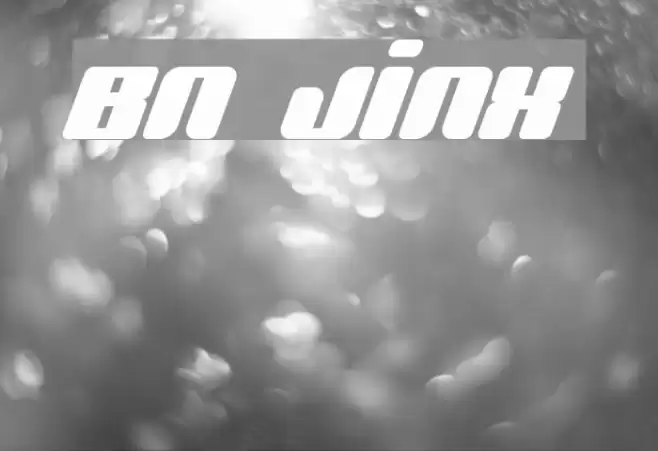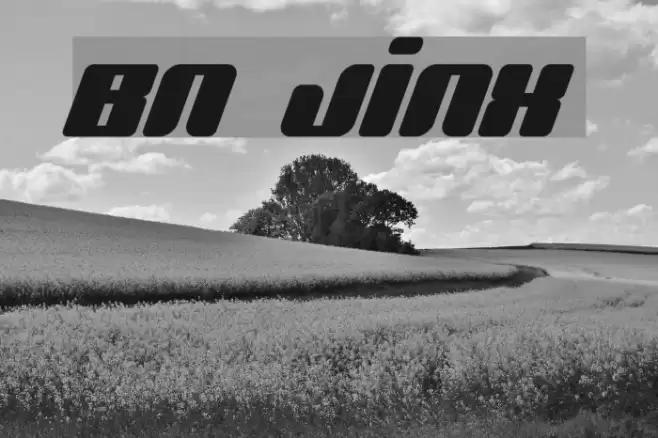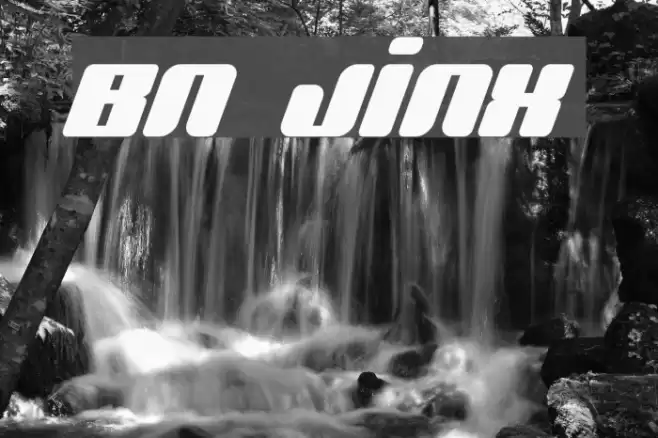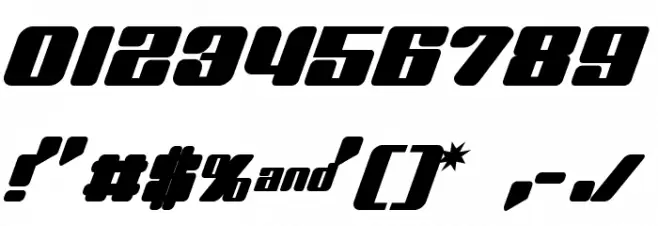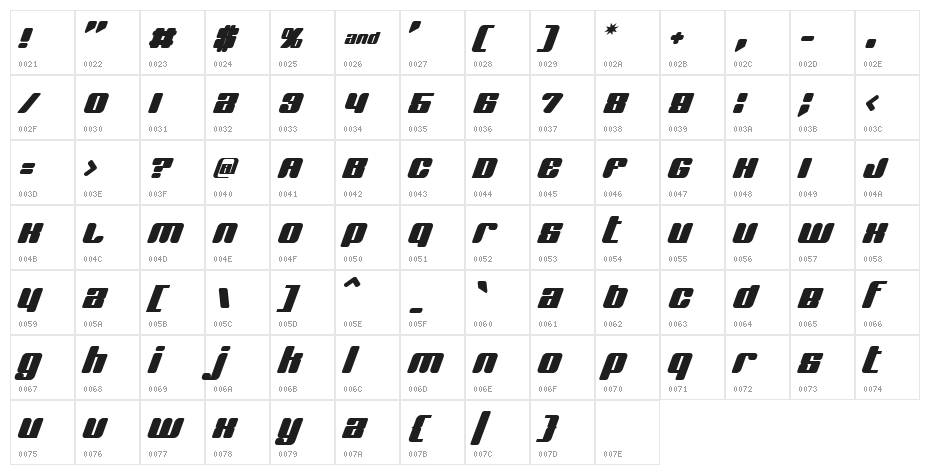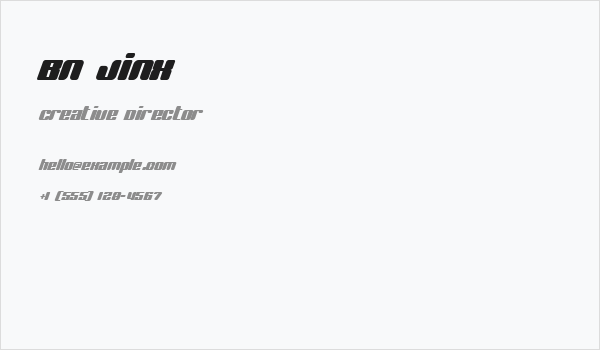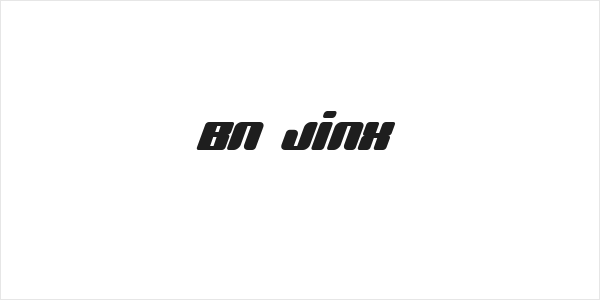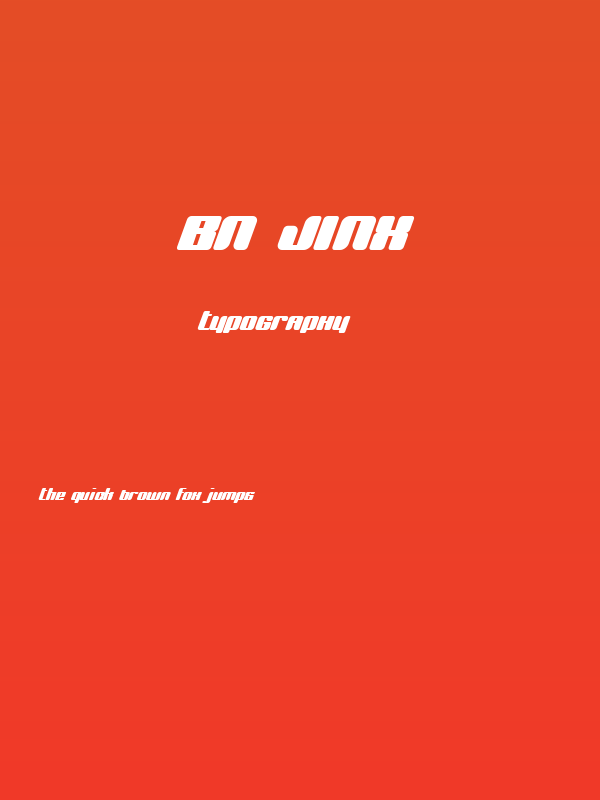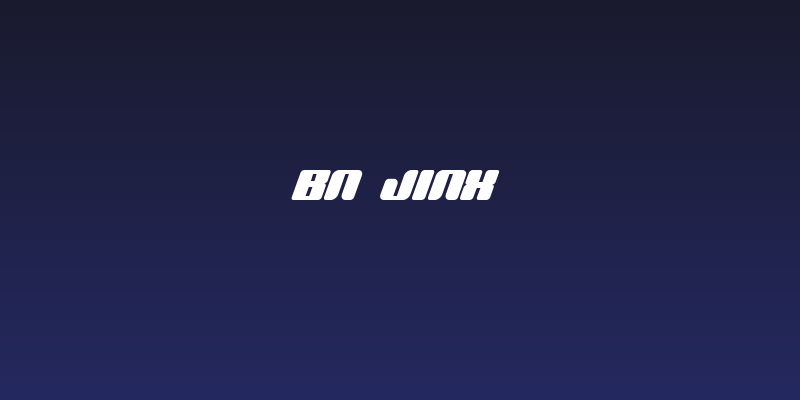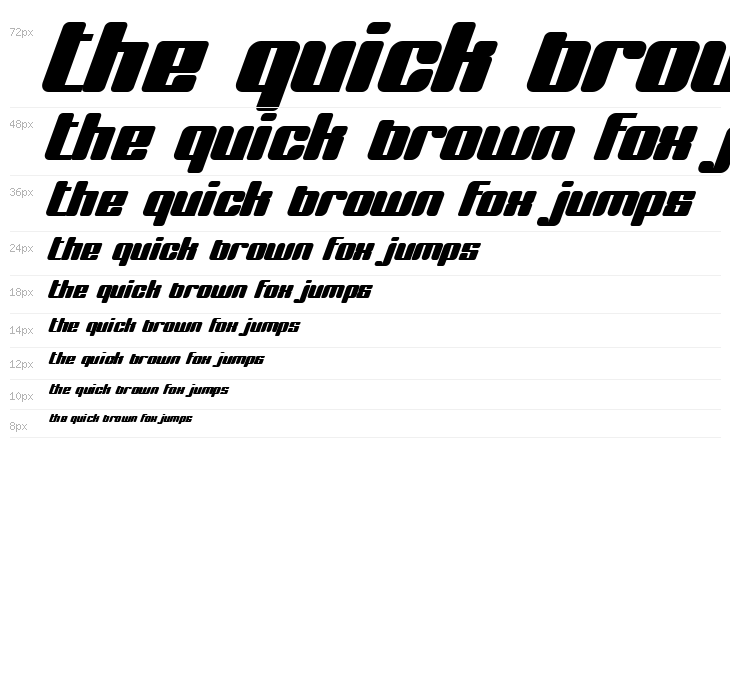
BN Jinx Font
BN Jinx Description
This font features a bold, modern style with a distinctive slant, giving it a dynamic and forward-moving appearance. The characters are wide and robust, with a strong presence that makes them ideal for attention-grabbing headlines. The uppercase and lowercase letters maintain a consistent design, with rounded edges and a slight italic angle that adds a sense of motion. The numerals and special characters follow the same bold and slanted style, ensuring uniformity across all text elements. This font's unique style is both contemporary and versatile, making it suitable for a variety of design projects.
A bold, slanted font with a modern and dynamic style from Capitals fonts.
- Proposed Projects: Ideal for sports branding, dynamic posters, modern advertisements, and eye-catching headlines.